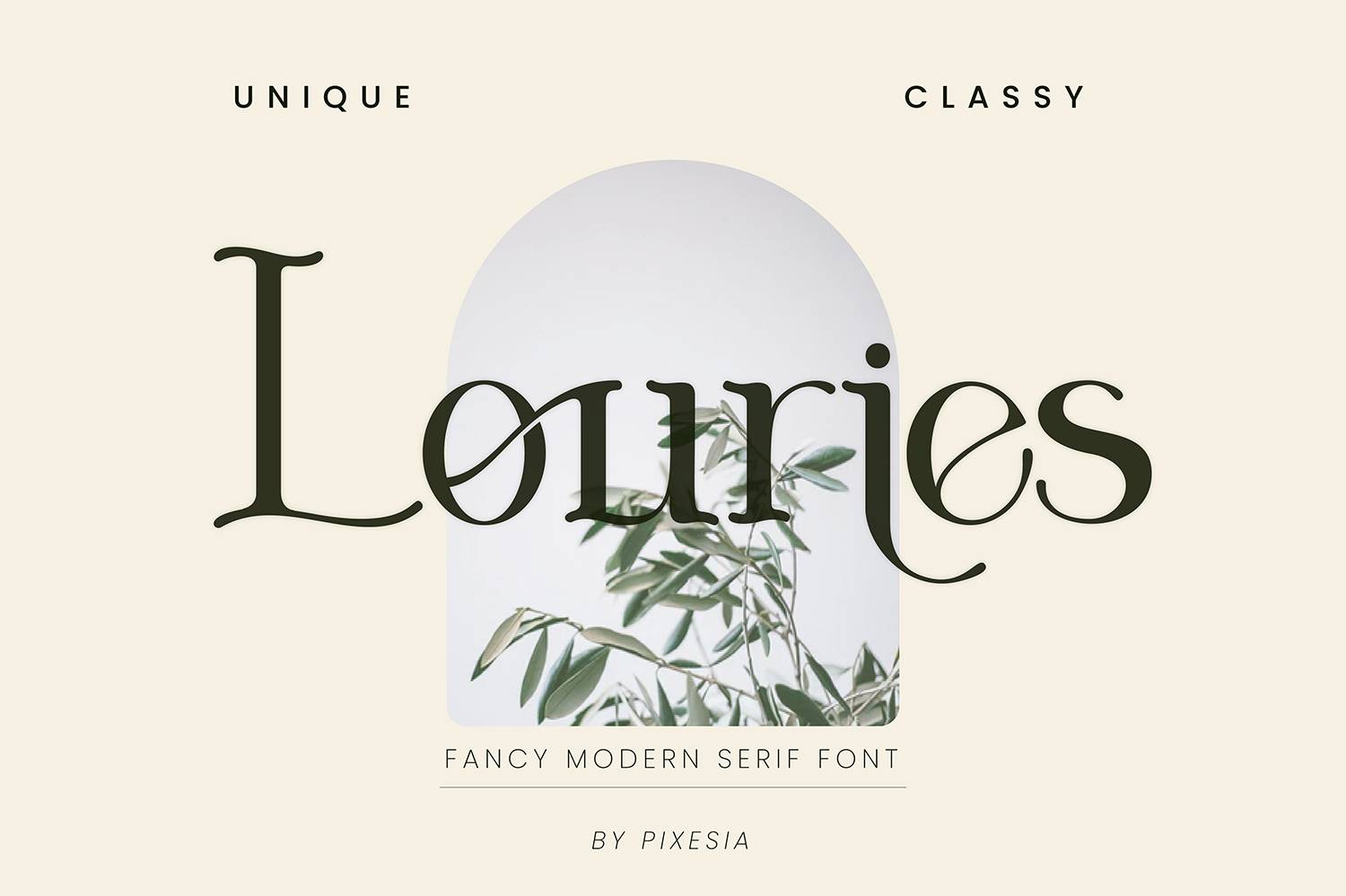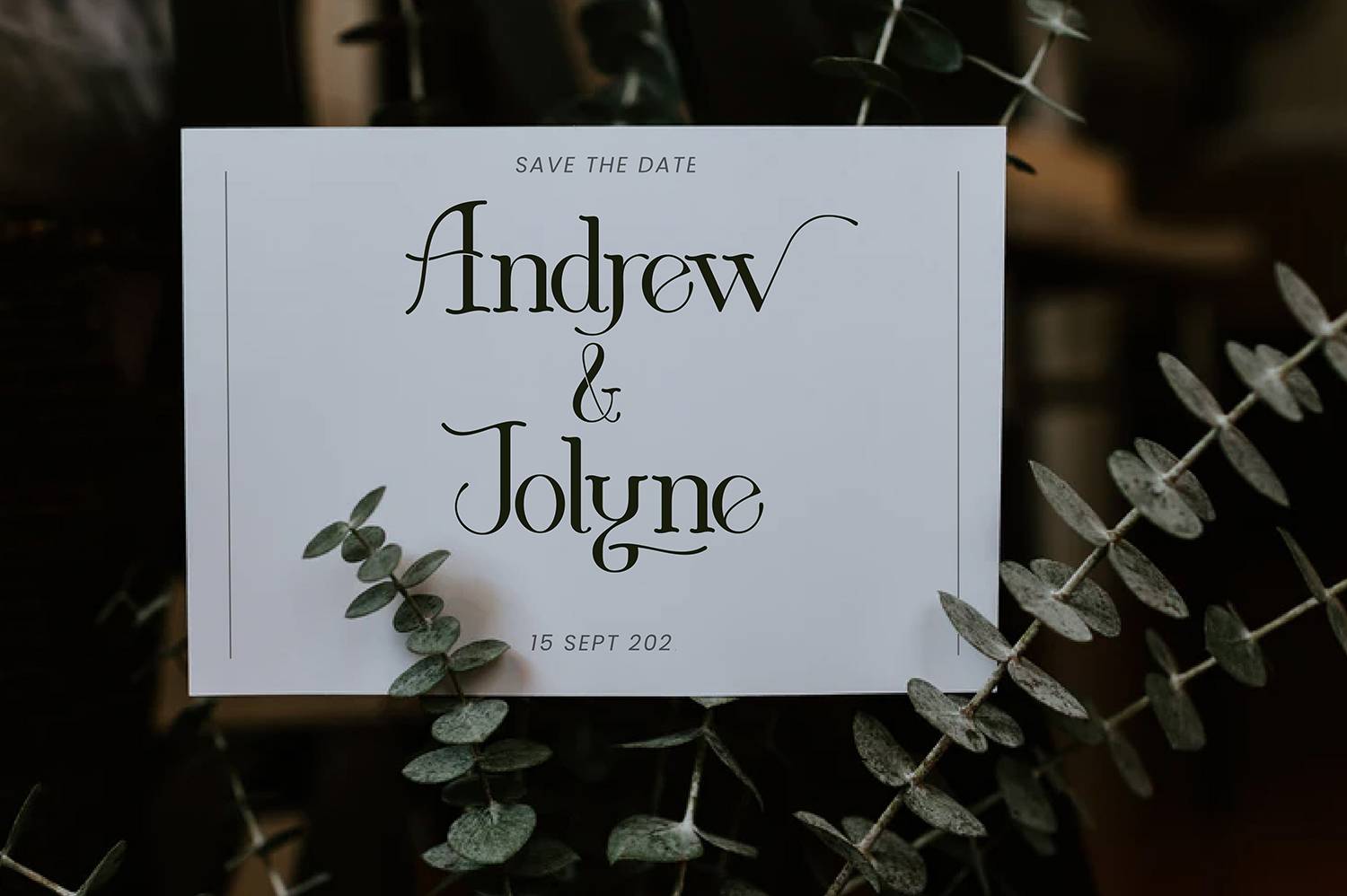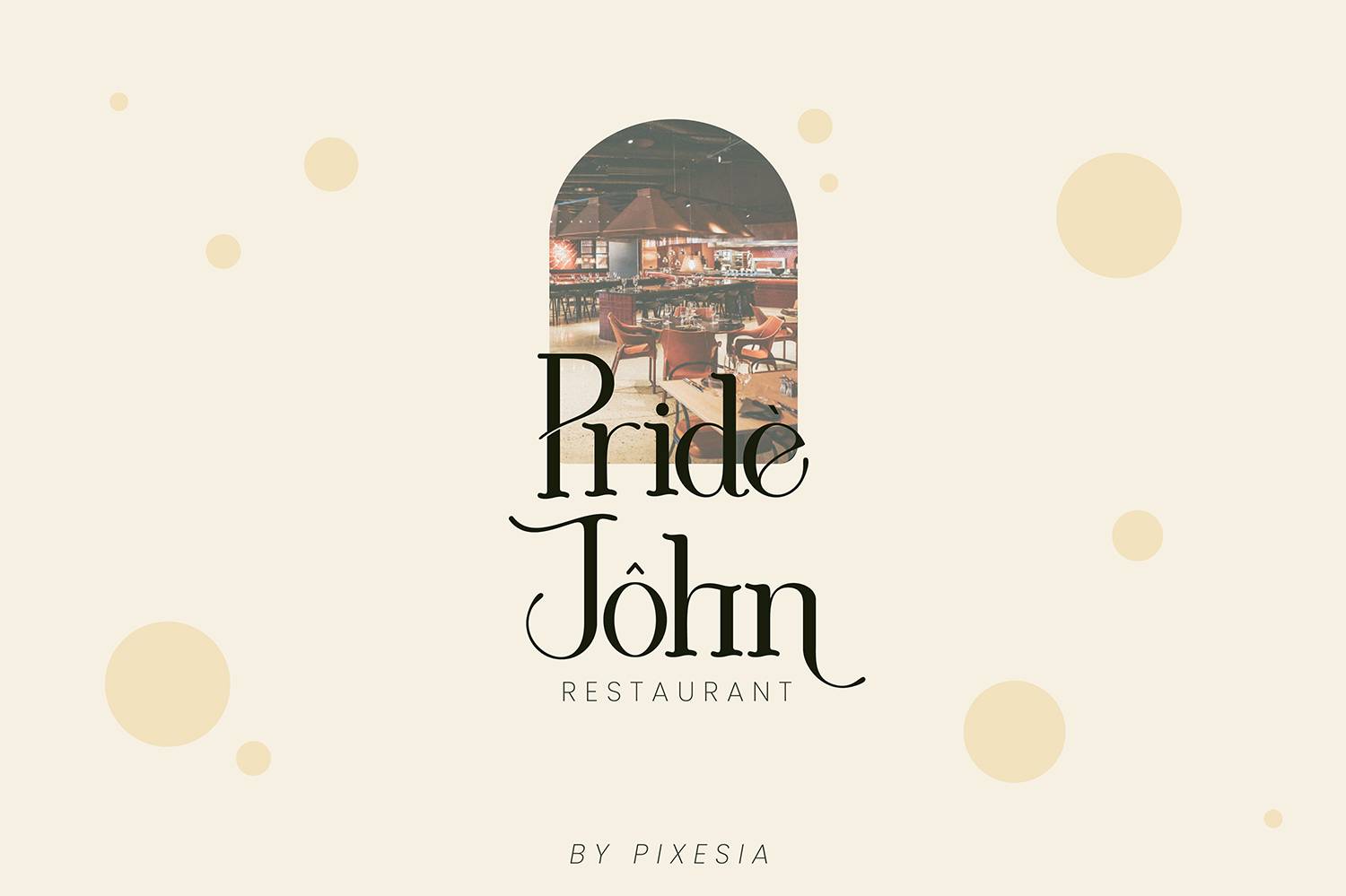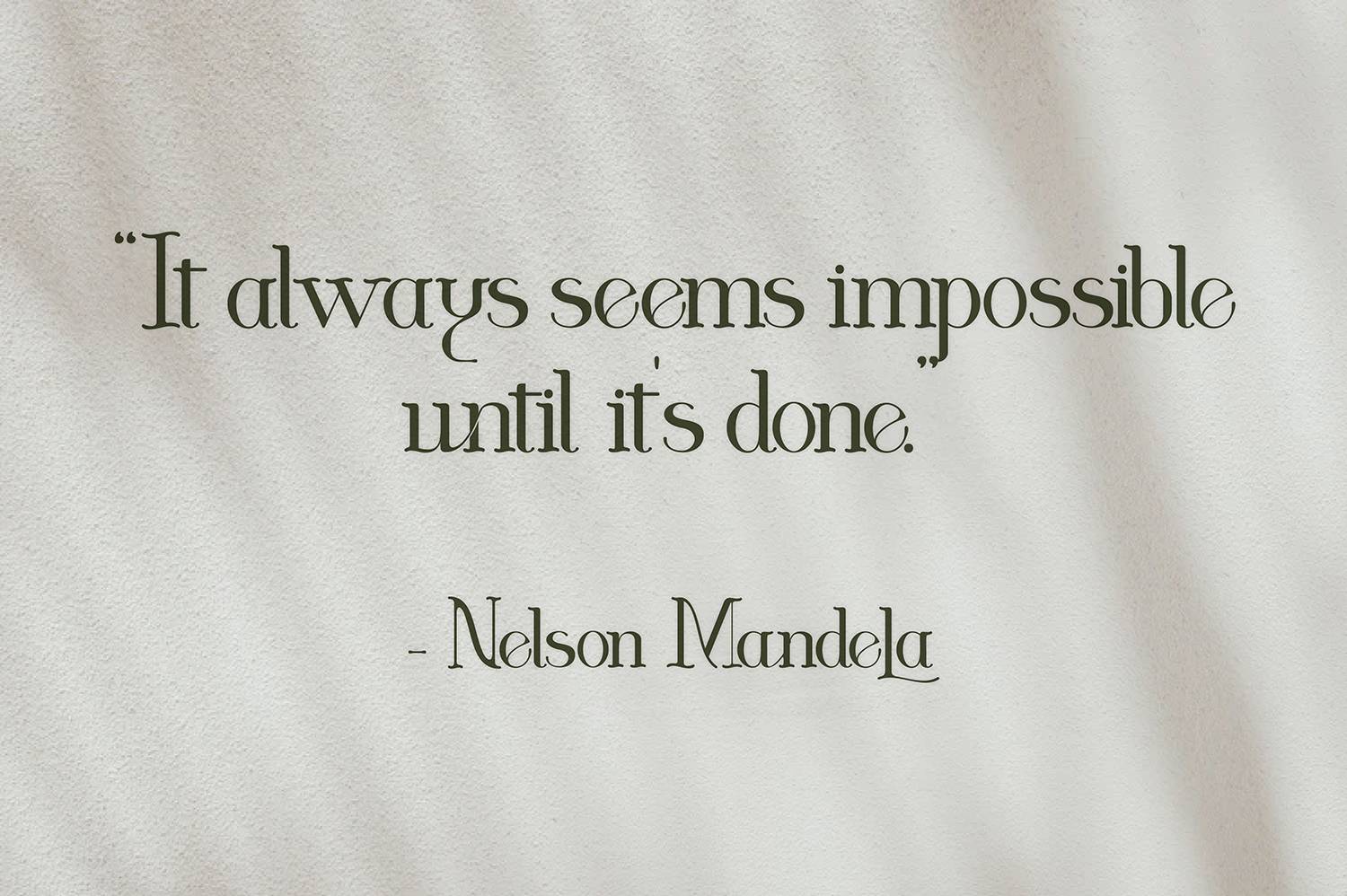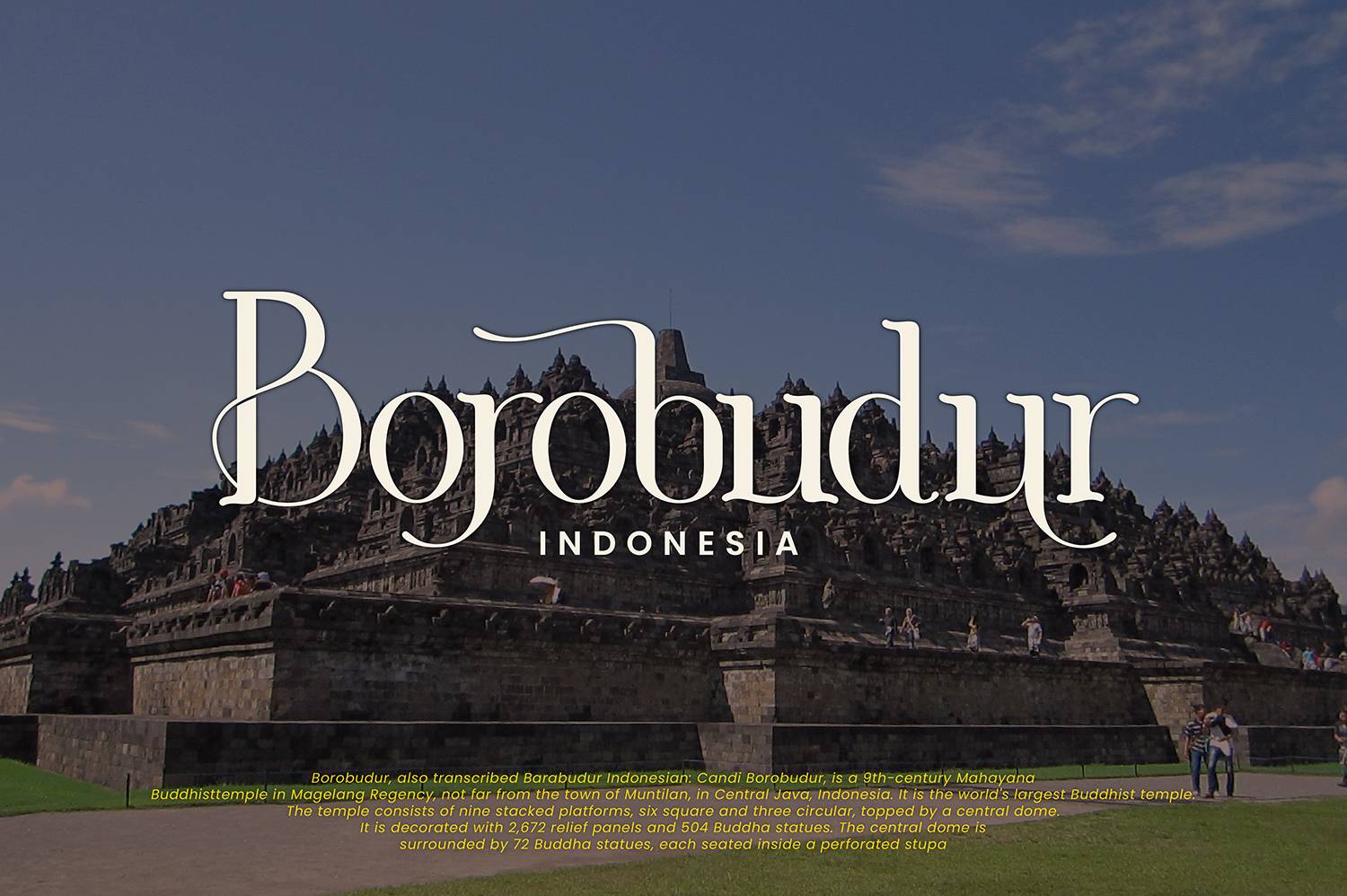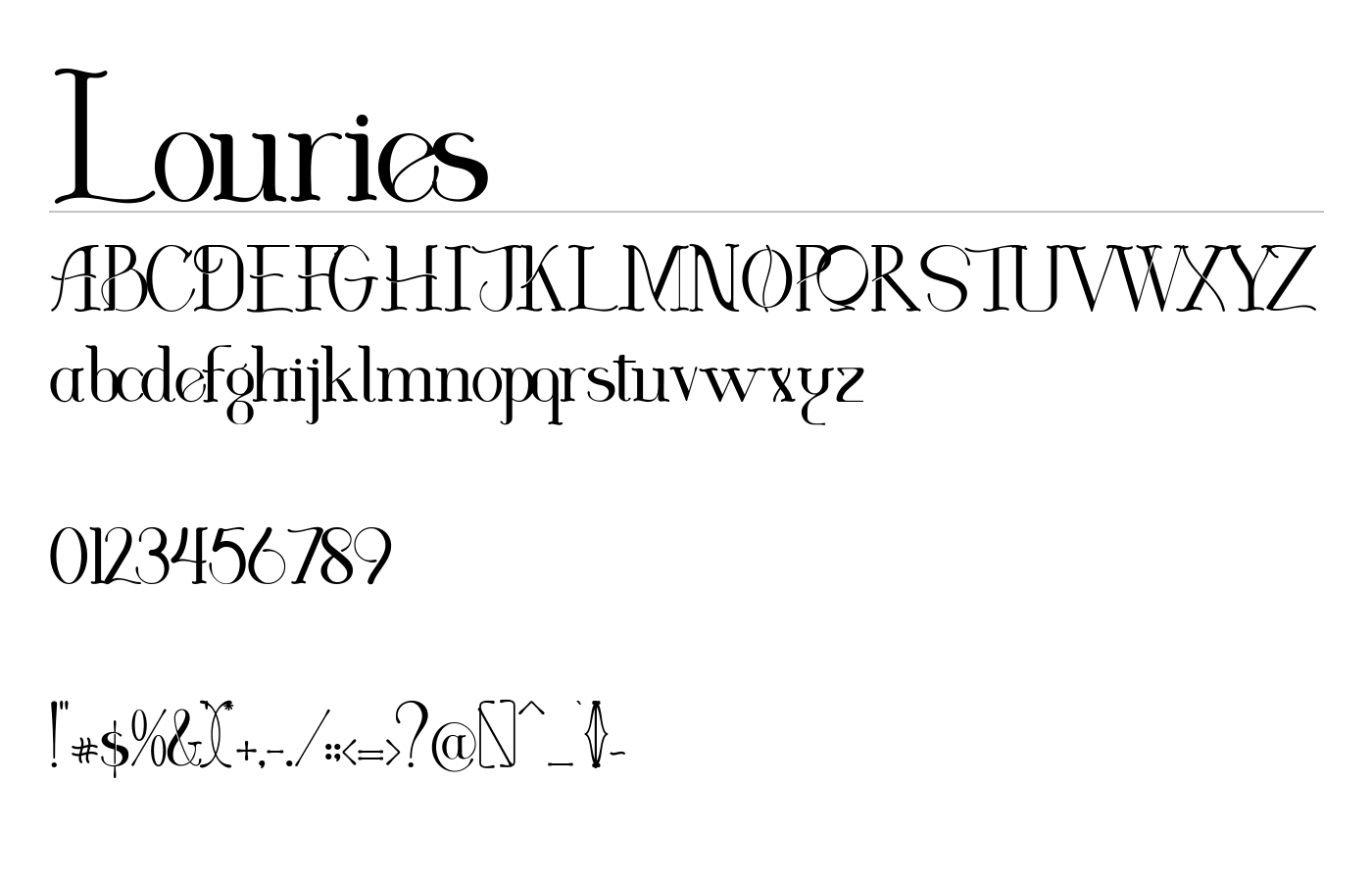
Louries is an elegant serif font with a high contrast between thick and thin strokes, featuring delicate, bracketed serifs and a slender, slightly condensed structure. Its unique letterforms, such as the intertwined lowercase "e" and "s" and stylized uppercase characters, give it a refined, artistic personality ideal for luxury branding, editorial design, and sophisticated logos. This font communicates a sense of creativity and grace, making it perfect for projects that seek a distinctive, high-end aesthetic.
Louries Font
About Louries Font
| Font family | Louries Font |
| Release date | 2021-03-11 |
| Designer | Abul Almaududi |
| Trademark | Pixesia |